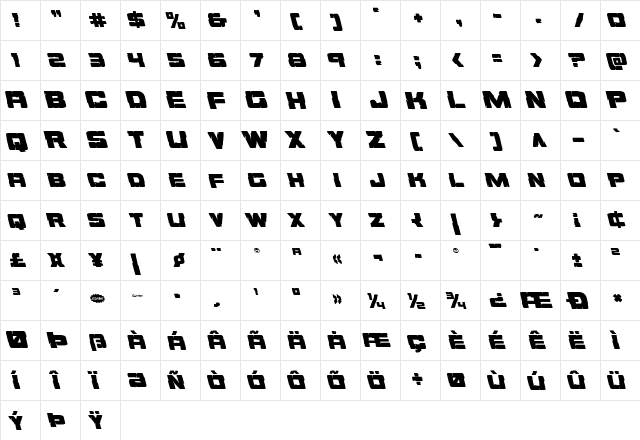
Ore Crusher Leftalic Italic
Design Context for Ore Crusher Leftalic Typeface
Ore Crusher Leftalic is a composed and adaptable typeface that performs quietly and consistently across a wide range of design contexts. The slanted form adds forward momentum and visual energy.
Pro Tip: Use Ore Crusher Leftalic for emphasis, pull quotes, and subheadings where its slanted energy can add rhythm to the layout.